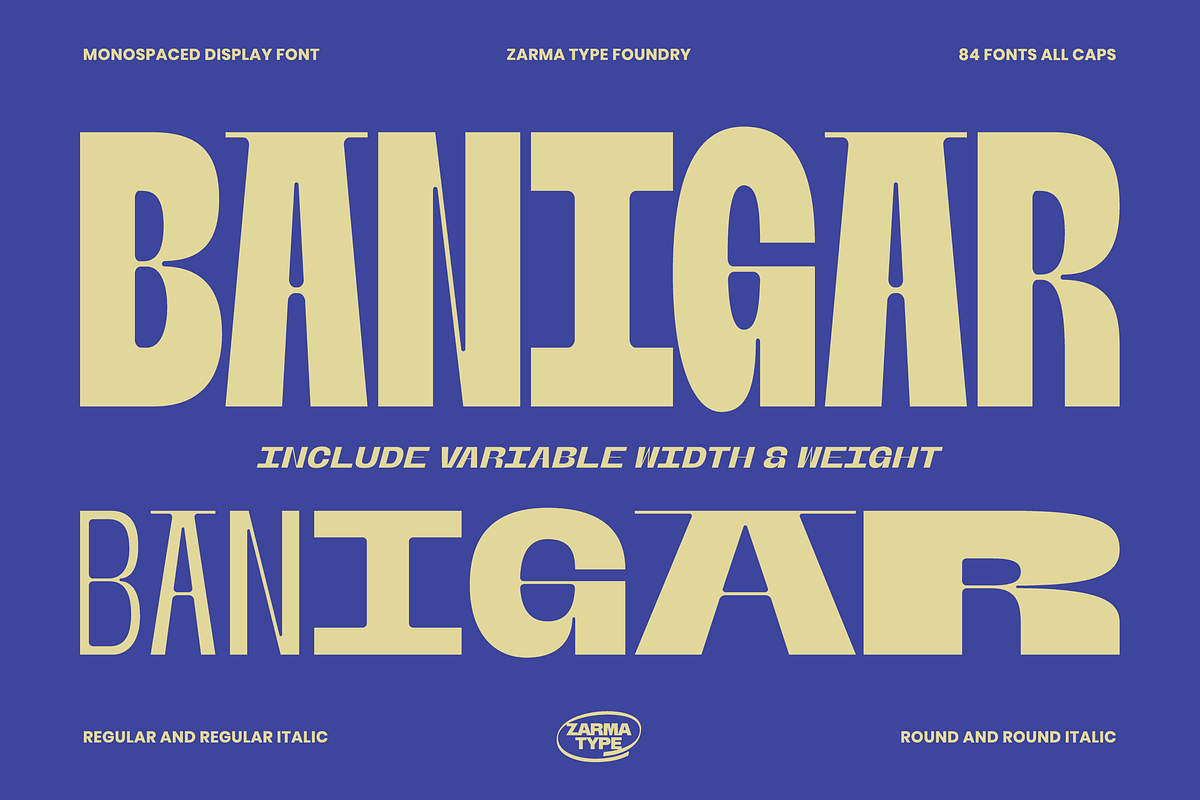
Banigar - Modern Display (84 Fonts) Free Download is a comprehensive font family that includes 84 different styles, perfect for any creative project that needs versatility and modern flair. Featuring a wide range of weights and styles, Banigar allows you to mix and match for all kinds of designs—from bold, high-impact headlines to sleek, professional text.
This font family is ideal for branding, logos, editorial design, websites, posters, packaging, and more. Whether you're working on a minimalist project or something more vibrant, Banigar offers endless possibilities to enhance your typography with its contemporary, well-balanced letterforms.